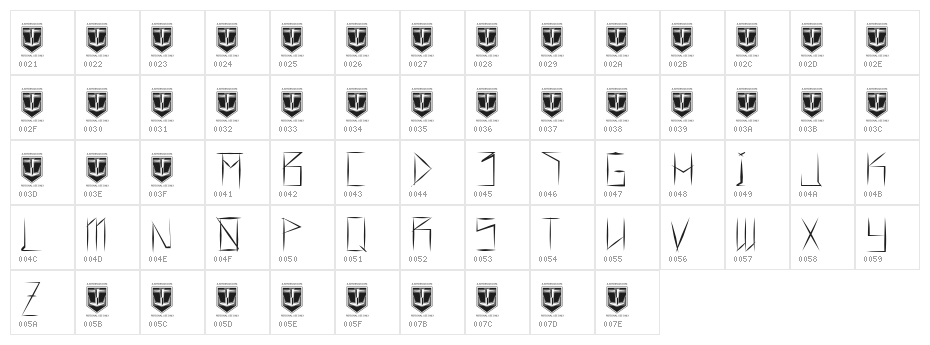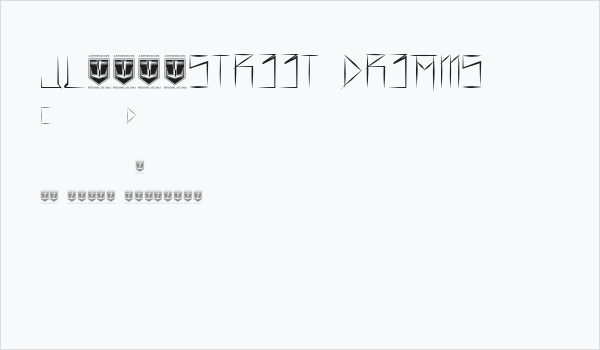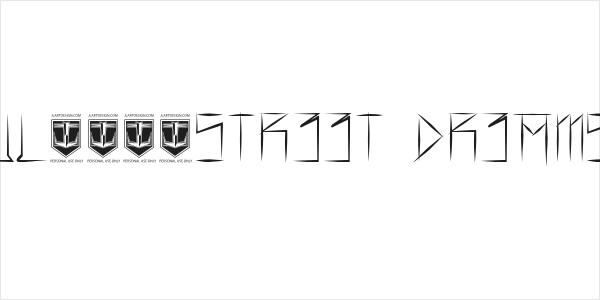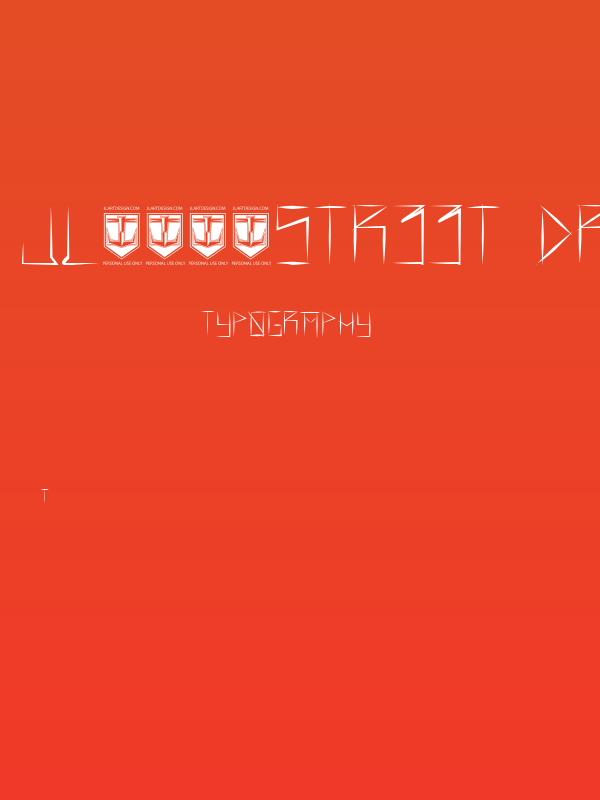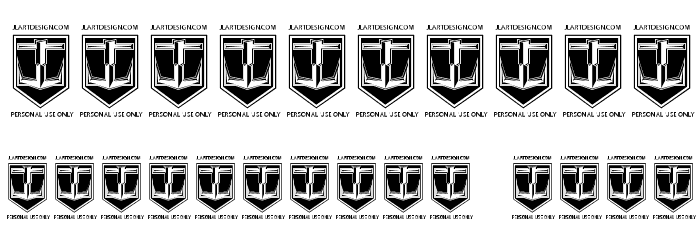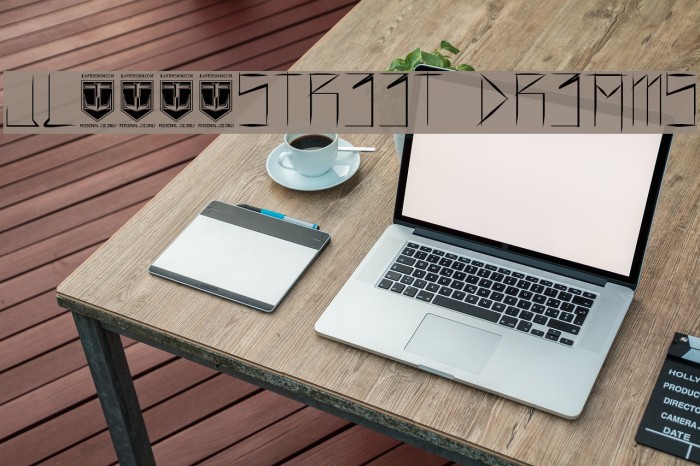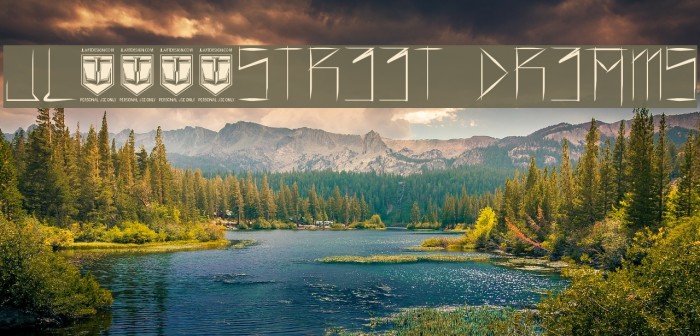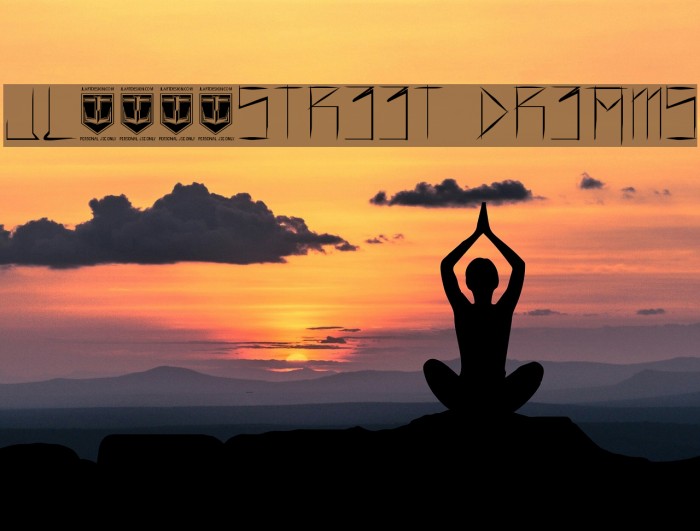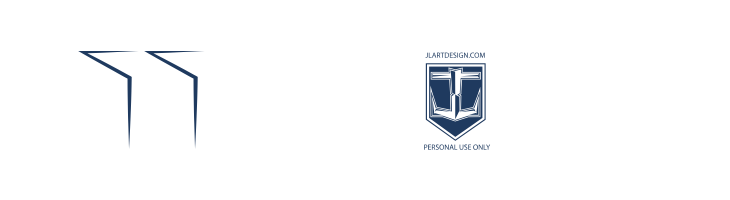
JL357_STREET DREAMS Font
This font features a unique and edgy design with sharp, angular lines and a futuristic aesthetic. The uppercase letters are crafted with a distinct geometric style, incorporating pointed edges and varying line thicknesses that create a dynamic and bold appearance. The overall look is modern and somewhat industrial, making it stand out with its unconventional form. The characters are evenly spaced, maintaining a consistent and structured layout. This font is ideal for projects that require a strong visual impact and a contemporary feel.
| Proposed Projects | Ideal for branding, album covers, posters, and any project needing a modern, bold statement. |